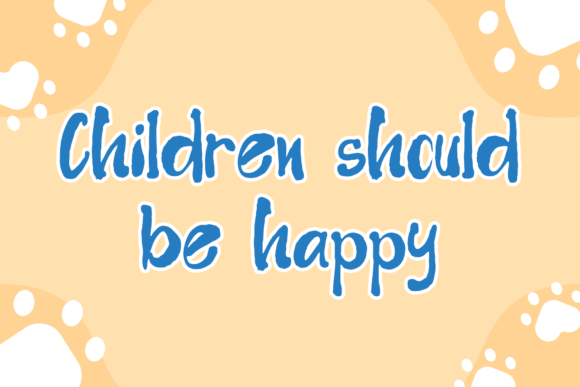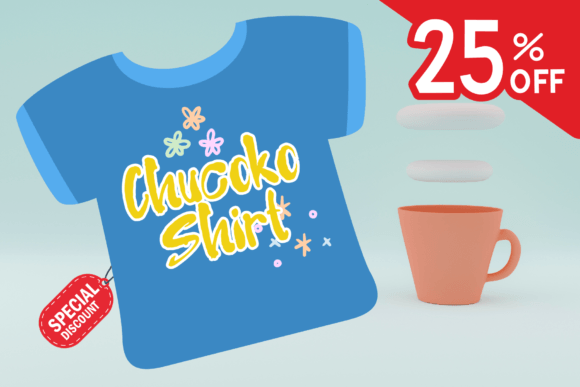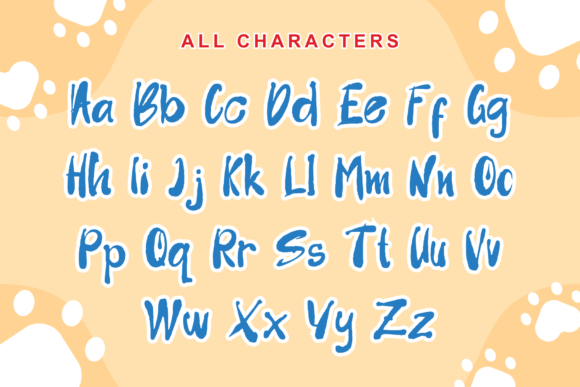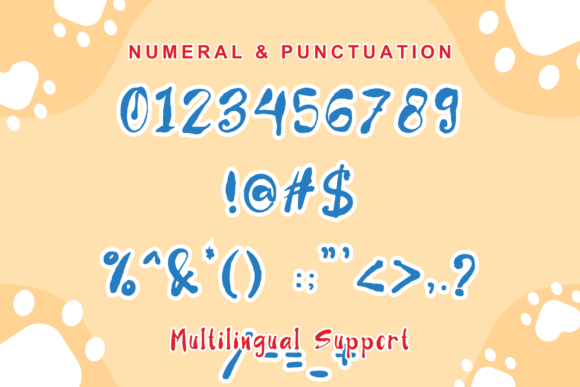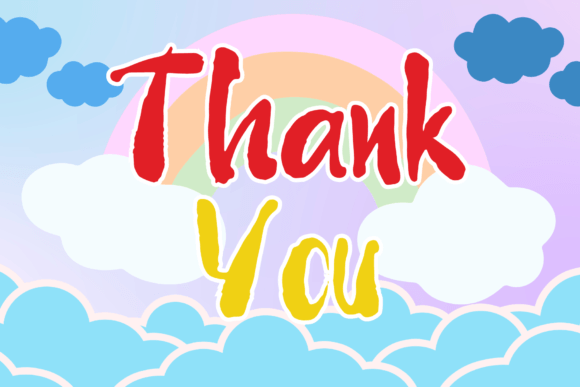
Introduction to Chucoko Font
Introducing a compelling handwritten font touched by the charm of nature – an artisanal accessory for your design toolkit.
This beautiful, organic font has a knack for adding a natural elegance to any design detail From crafting an ornate invitation to designing a captivating book cover, the level of finesse it adds is nothing short of perfection.
Chucoko Font offers exceptional quality and versatility, making it a valuable addition to your design toolkit. Whether you’re creating for personal projects or commercial use, Chucoko Font delivers professional results.